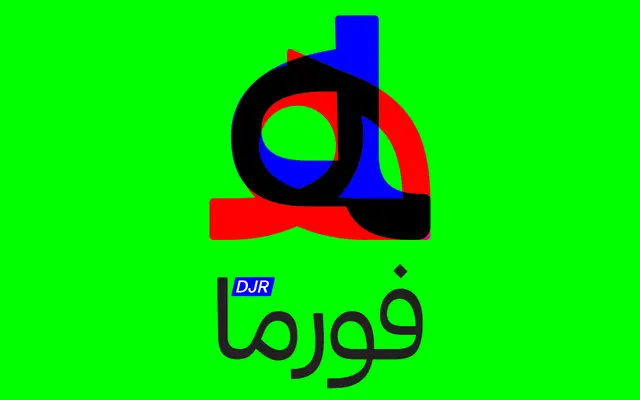
Forma DJR Arabic
David Jonathan Ross · Khajag Apelian, Wael Morcos
An Arabic companion to DJR's Forma revival, designed by Khajag Apelian and Wael Morcos with rounded corners and tapered stems that carry the Latin's inky character into the Arabic script.
Designed to work alongside DJR's revival of Nebiolo's 1968 Forma, this Arabic family translates the Latin's defining details — rounded corners, slightly tapered stems — into solutions specific to Arabic letterforms, including contextual dot stacking, adjusted connecting strokes and angled vocalization marks for tight spacing. Five optical sizes run from Micro through to Banner, each calibrated for its intended setting, with spacing progressively relaxed as size decreases. The 25-style series includes a variable font spanning both weight and optical size axes, and each font contains Latin alongside Arabic.
A companion Arabic typeface to Forma DJR, itself a revival of Nebiolo's 1968 neo-grotesque. The Arabic inherits the Latin's rounded corners and tapered stems, placing it firmly in the neo-grotesque sans tradition adapted for Arabic script.